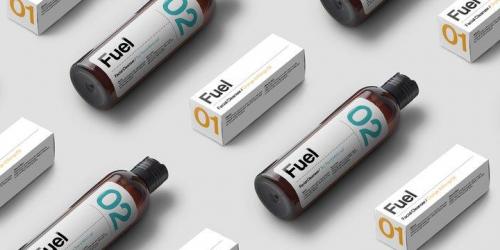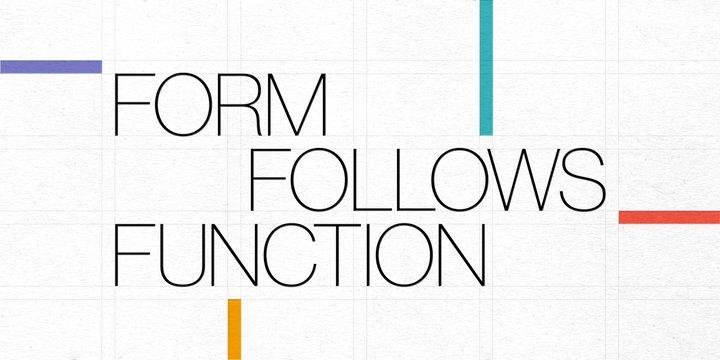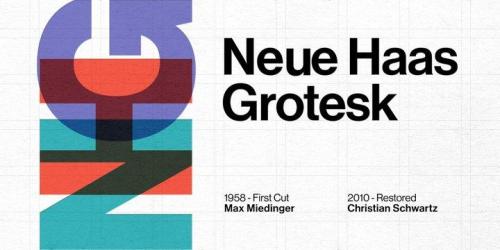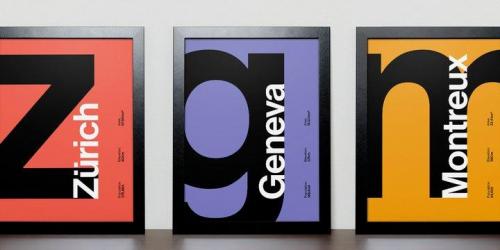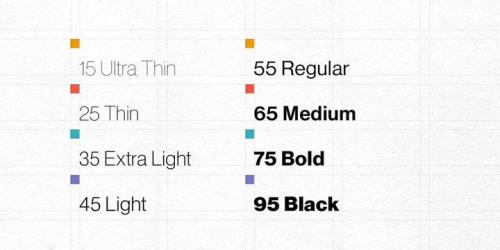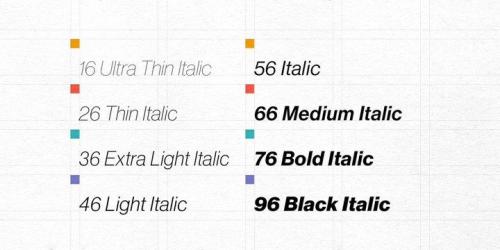
The first weights of Neue Haas Grotesk were designed in 1957-1958 by Max Miedinger for the Haas’sche Schriftgiesserei in Switzerland, with art direction by the company’s principal, Eduard Hoffmann. Neue Haas Grotesk was to be the answer to the British and German grotesques that had become hugely popular thanks to the success of functionalist Swiss typography. The typeface was soon revised and released as Helvetica by Linotype AG.
As Neue Haas Grotesk had to be adapted to work on Linotype’s hot metal linecasters, Linotype Helvetica was in some ways a radically transformed version of the original. For instance, the matrices for Regular and Bold had to be of equal widths, and therefore the Bold was redrawn at a considerably narrower proportion. During the transition from metal to phototypesetting, Helvetica underwent additional modifications. In the 1980s Neue Helvetica was produced as a rationalized, standardized version.
For Christian Schwartz, the assignment to design a digital revival of Neue Haas Grotesk was an occasion to set history straight. “Much of the warm personality of Miedinger’s shapes was lost along the way. So rather than trying to rethink Helvetica or improve on current digital versions, this was more of a restoration project: bringing Miedinger’s original Neue Haas Grotesk back to life with as much fidelity to his original shapes and spacing as possible (albeit with the addition of kerning, an expensive luxury in handset type).”
Schwartz’s revival was originally commissioned in 2004 by Mark Porter for the redesign of The Guardian, but not used. Schwartz completed the family in 2010 for Richard Turley at Bloomberg Businessweek. Its thinnest weight was designed by Berton Hasebe.
- Designer: Christian Schwartz, Max Miedinger